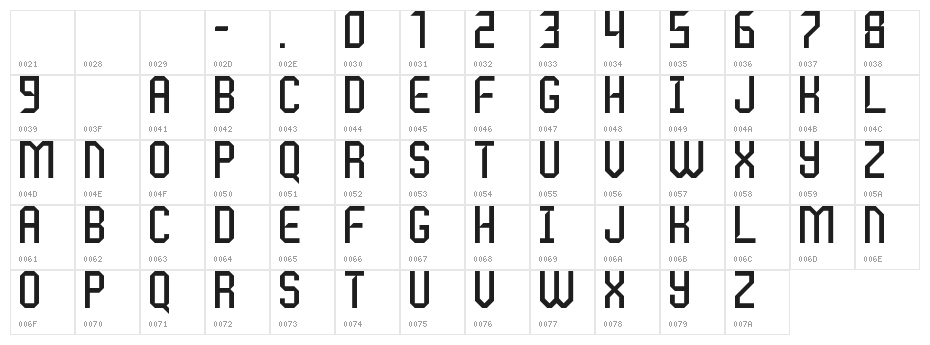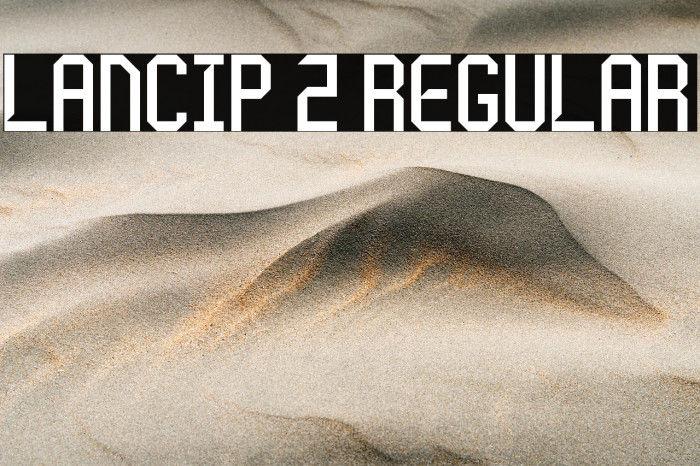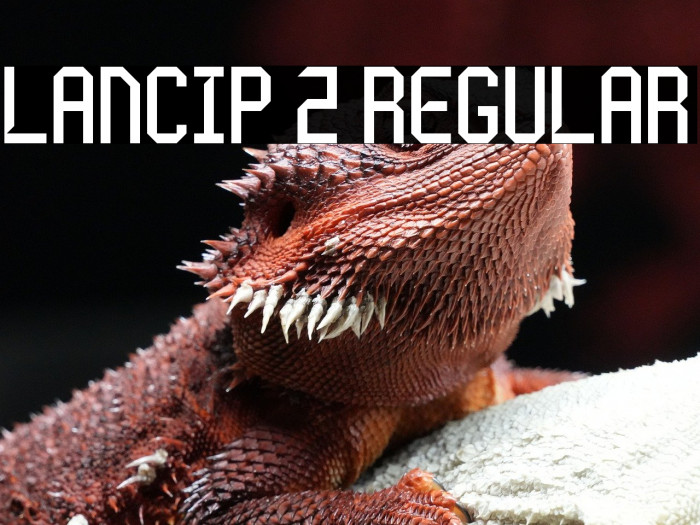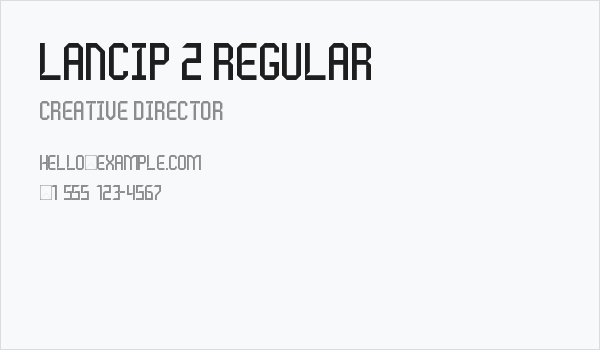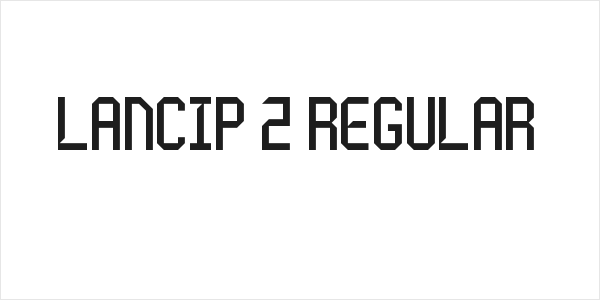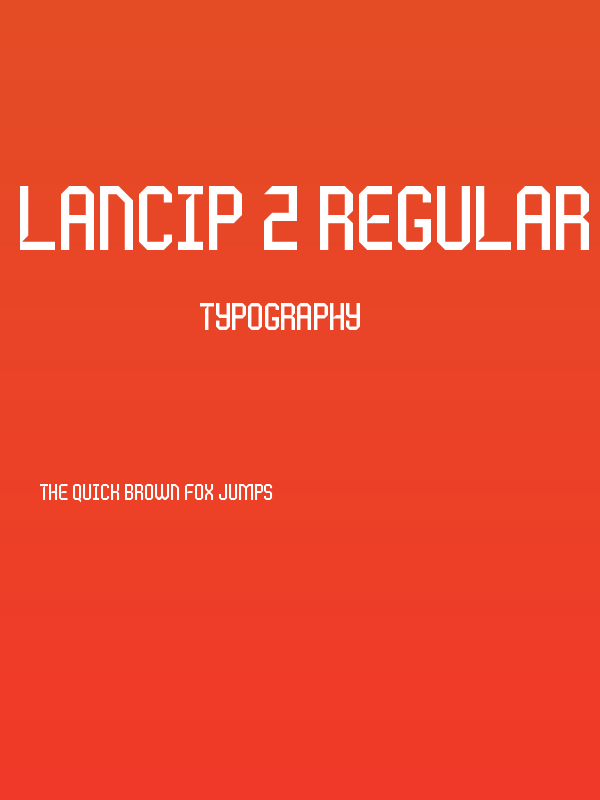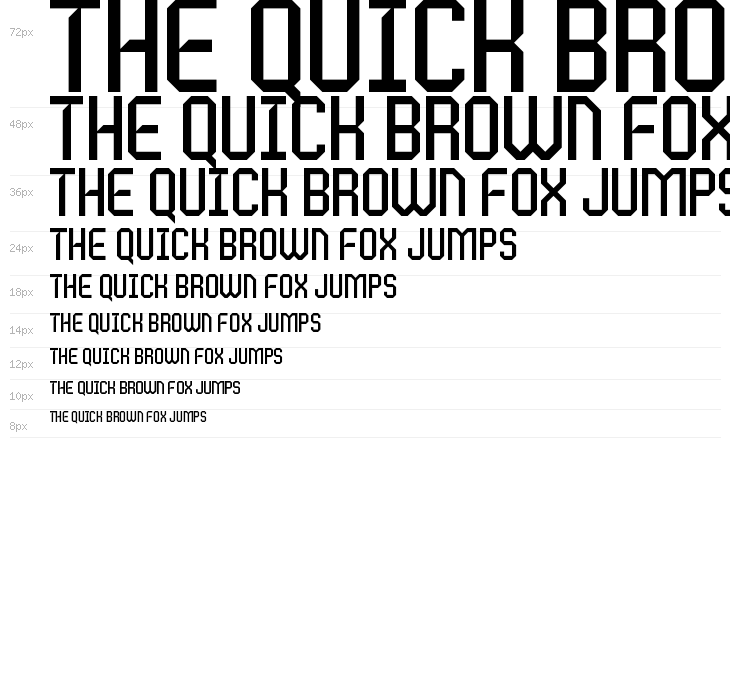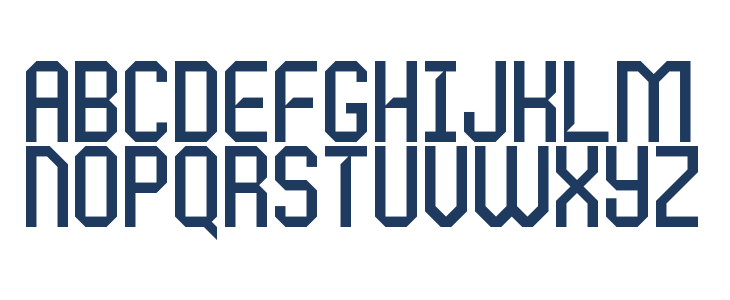
Lancip 2 Regular Font
Lancip 2 Regular Description
This font features a geometric and angular design, characterized by sharp edges and a modern aesthetic. The uppercase letters are uniform in height, creating a cohesive and structured appearance. The numerals follow the same angular style, ensuring consistency across all characters. The font's unique design makes it stand out, with each letter having a distinct and bold presence. The spacing between characters is tight, which enhances its compact and efficient look. This font is ideal for projects that require a contemporary and edgy feel, making it suitable for digital media and modern branding.
| Proposed Projects | Ideal for digital media, modern branding, tech-related projects, and futuristic designs. |